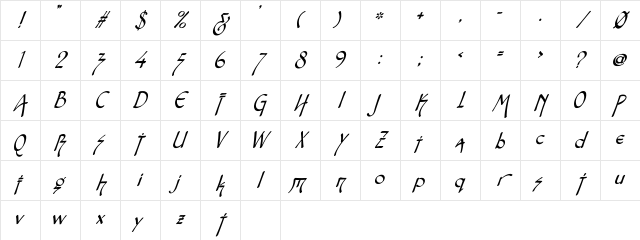
Fontasia Three Script Italic
Design Context for Fontasia Three Script
Fontasia Three Script flows with the natural rhythm of handwritten lettering, making it ideal for designs that call for warmth and personal expression.
Font Pairing: Combine Fontasia Three Script with a simple geometric sans for maximum contrast - the tension between flowing curves and clean structure is a classic typographic pairing.
Pro Tip: Use Fontasia Three Script for short runs of text - names, titles, or taglines. Extended body copy in script faces tires the eye quickly.